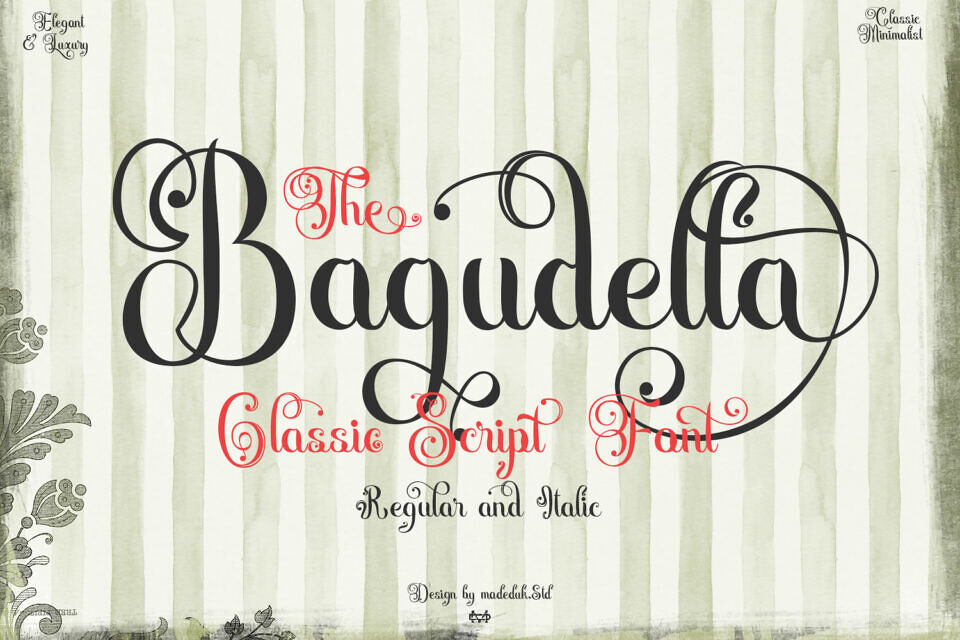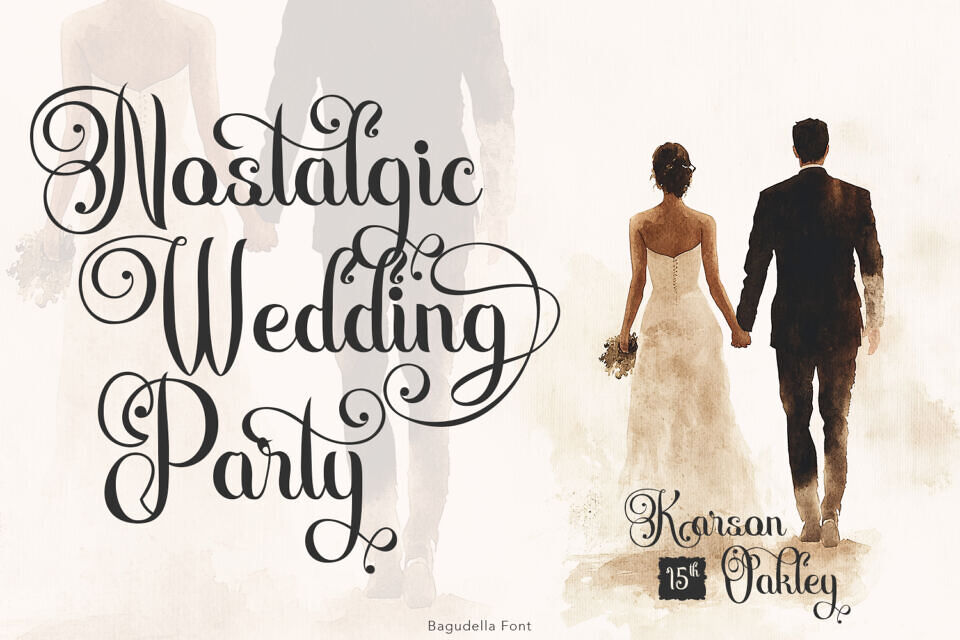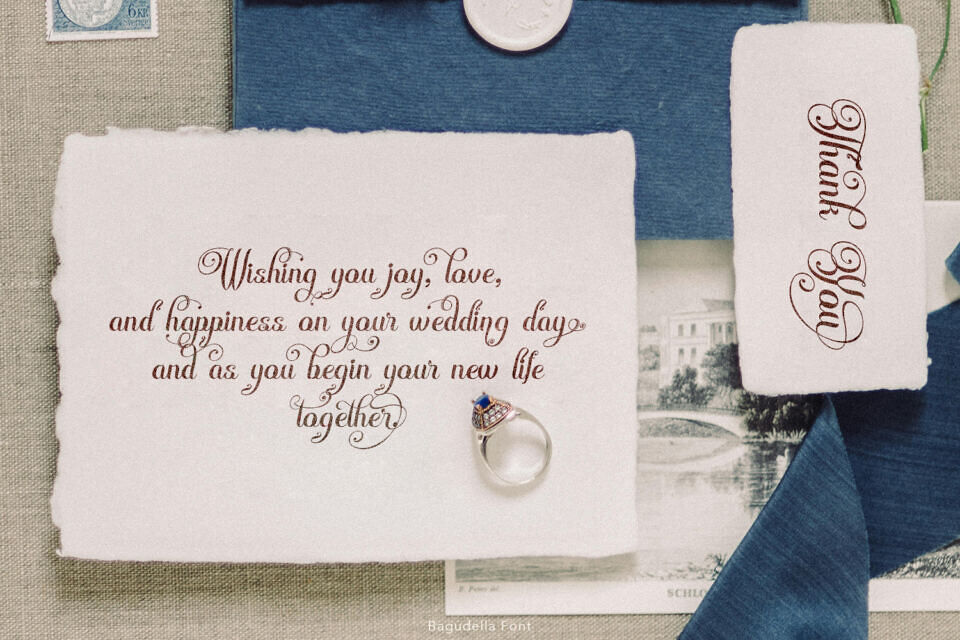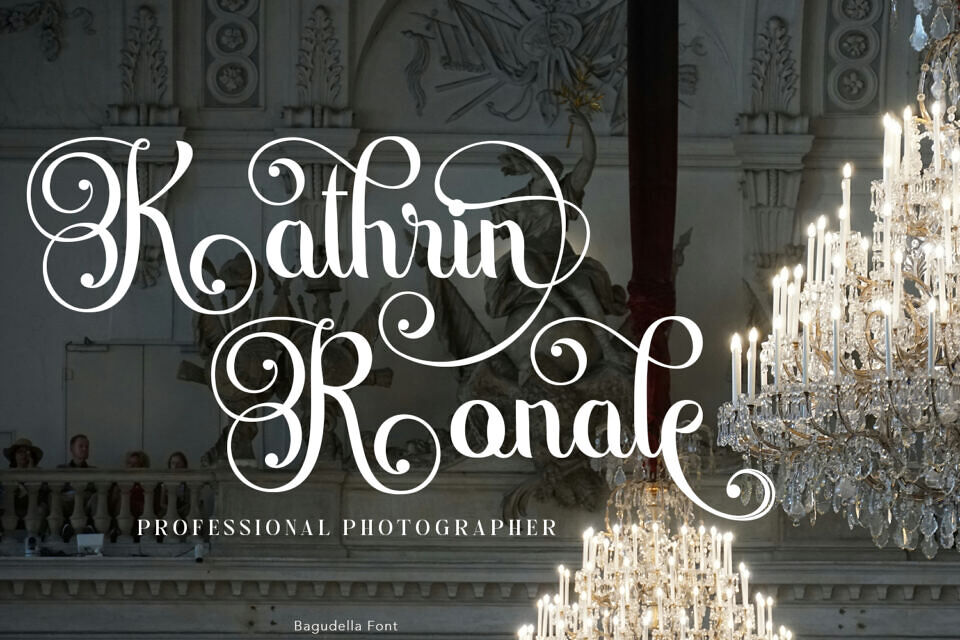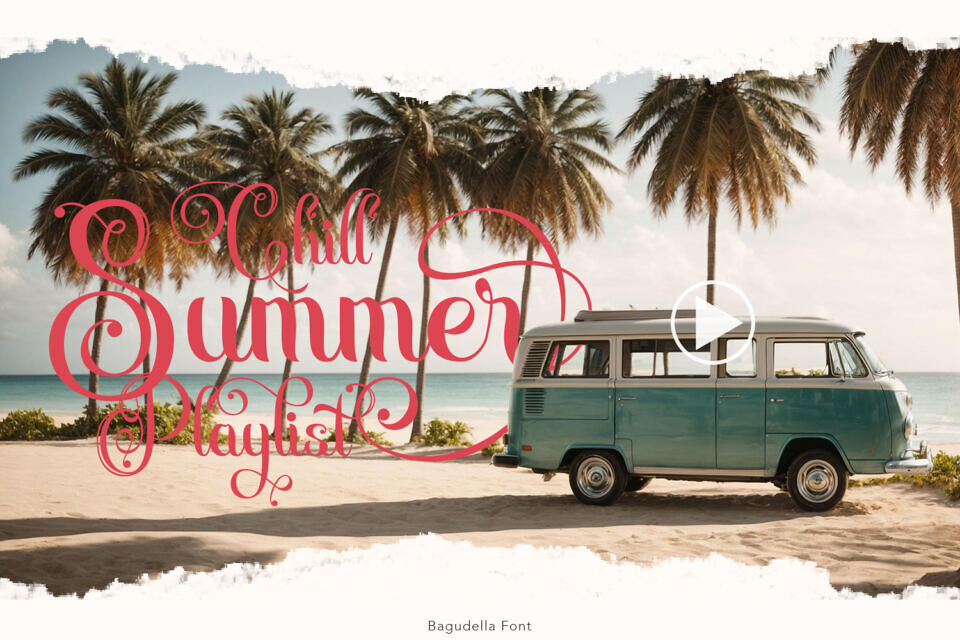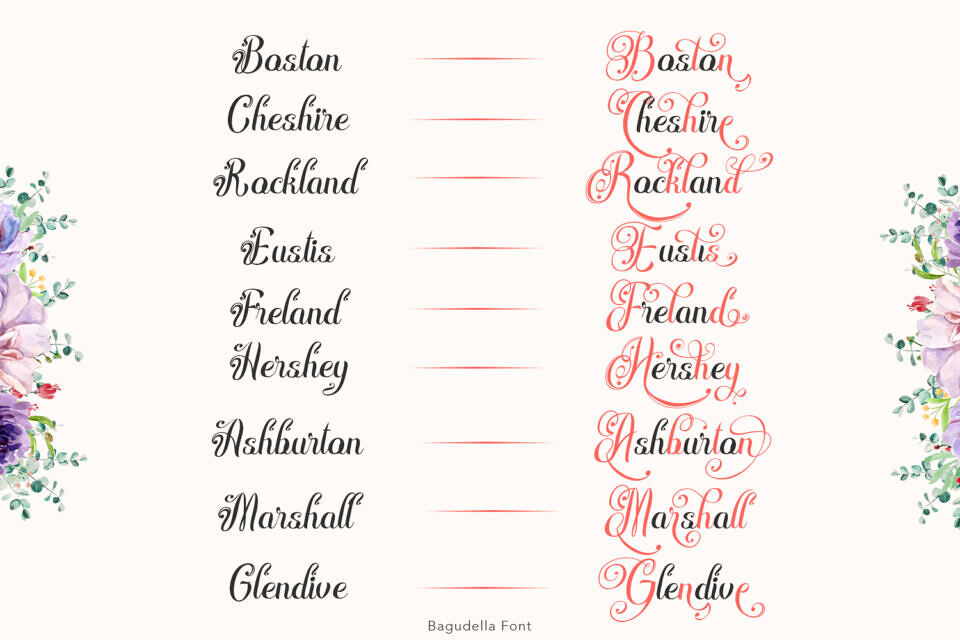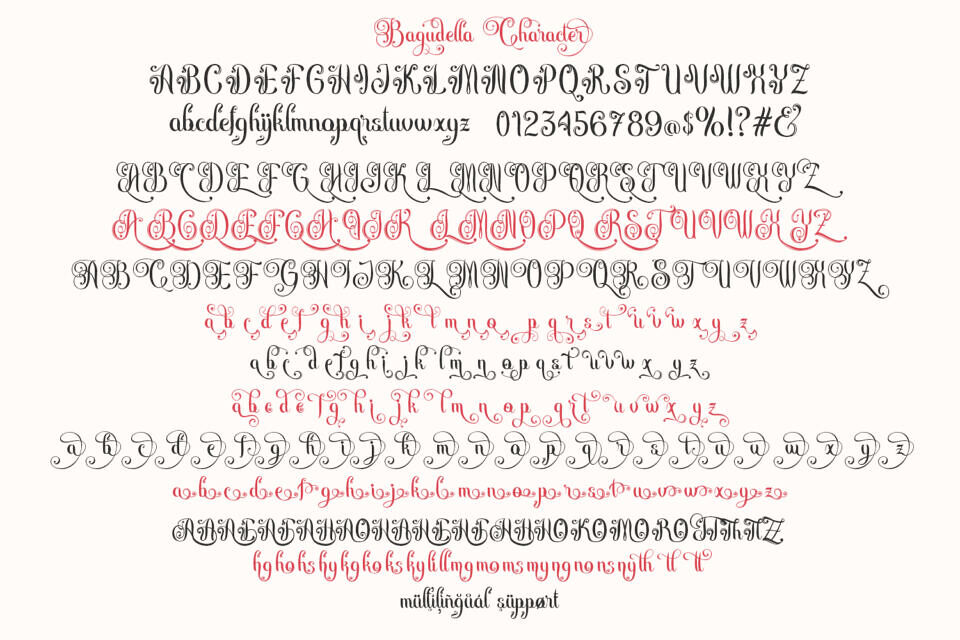
Bagudella Font
Bagundella is a nostalgic script inspired by vintage logos and hand lettering. Smooth strokes with groovy retro flair make it perfect for branding, packaging, and headlines that need an authentic vibe.
It’s easy to read yet full of personality, a timeless script for modern nostalgia. Perfectly suited for branding, logotypes, quotes, labels, social media posts, advertisements, product packaging, logo designs, poster, photography, invitation, stationery